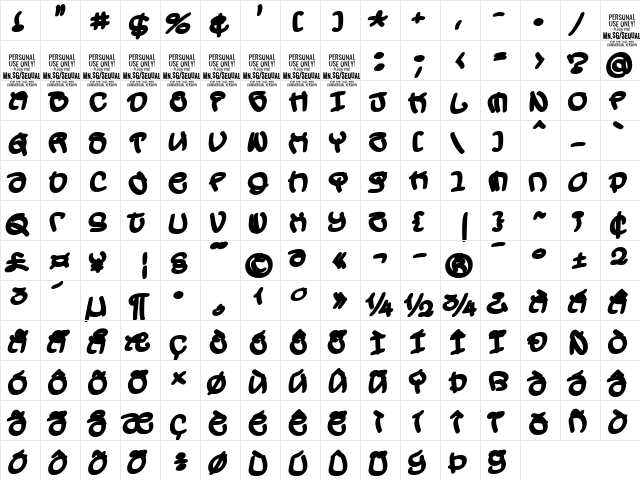
Sequal Black PERSONAL USE Regular
| Foundry | Mans Greback |
| Designer | Mans Greback |
Design Context for Sequal Black PERSONAL USE Typeface
Sequal Black PERSONAL USE is a composed and adaptable typeface that performs quietly and consistently across a wide range of design contexts.